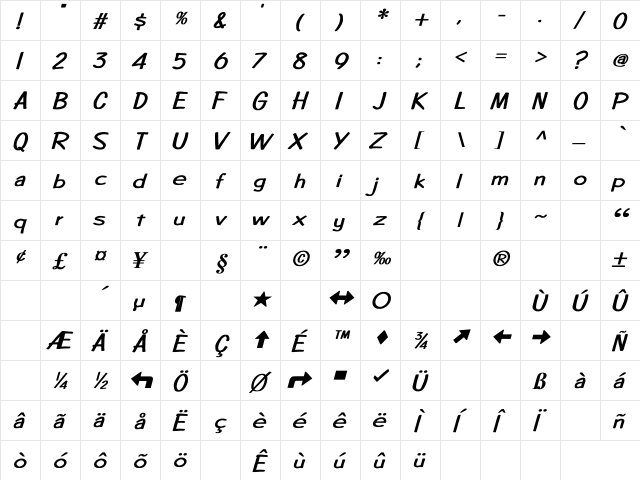
Diego1 BI Bold Italic
Design Context for Diego1 BI Typeface
Diego1 BI takes a measured approach to typography — its balanced proportions and neutral character make it a reliable workhorse for both digital and print work. The slanted form adds forward momentum and visual energy. The heavy weight commands attention and anchors typographic hierarchies.
Pro Tip: Try Diego1 BI for annotation and caption copy alongside an upright companion — the contrast in angle creates a dynamic but ordered typographic system.